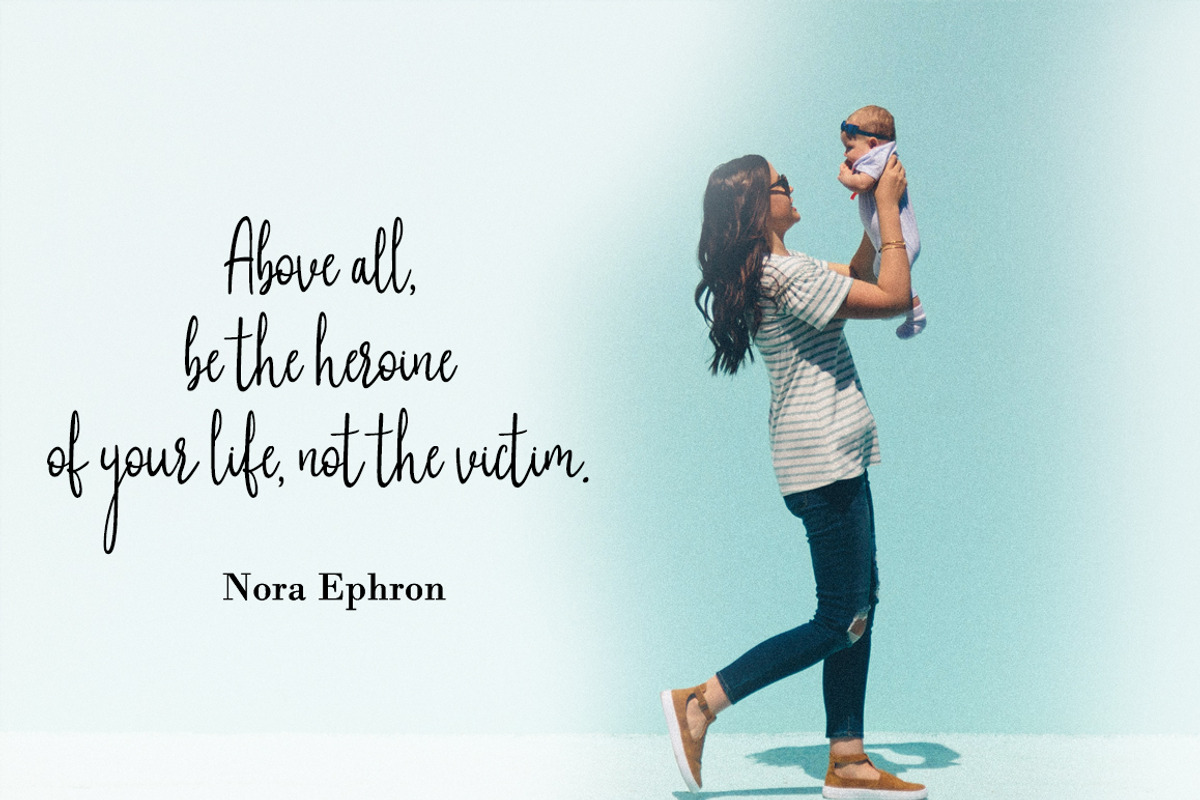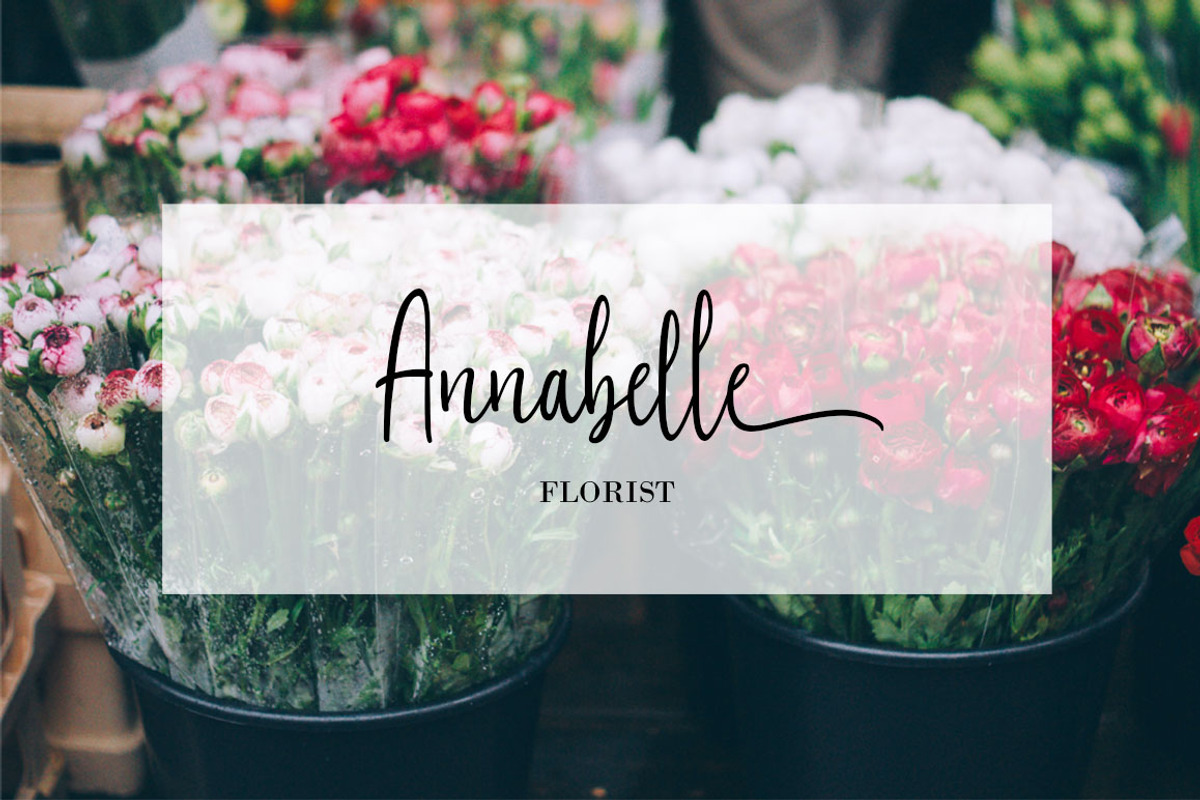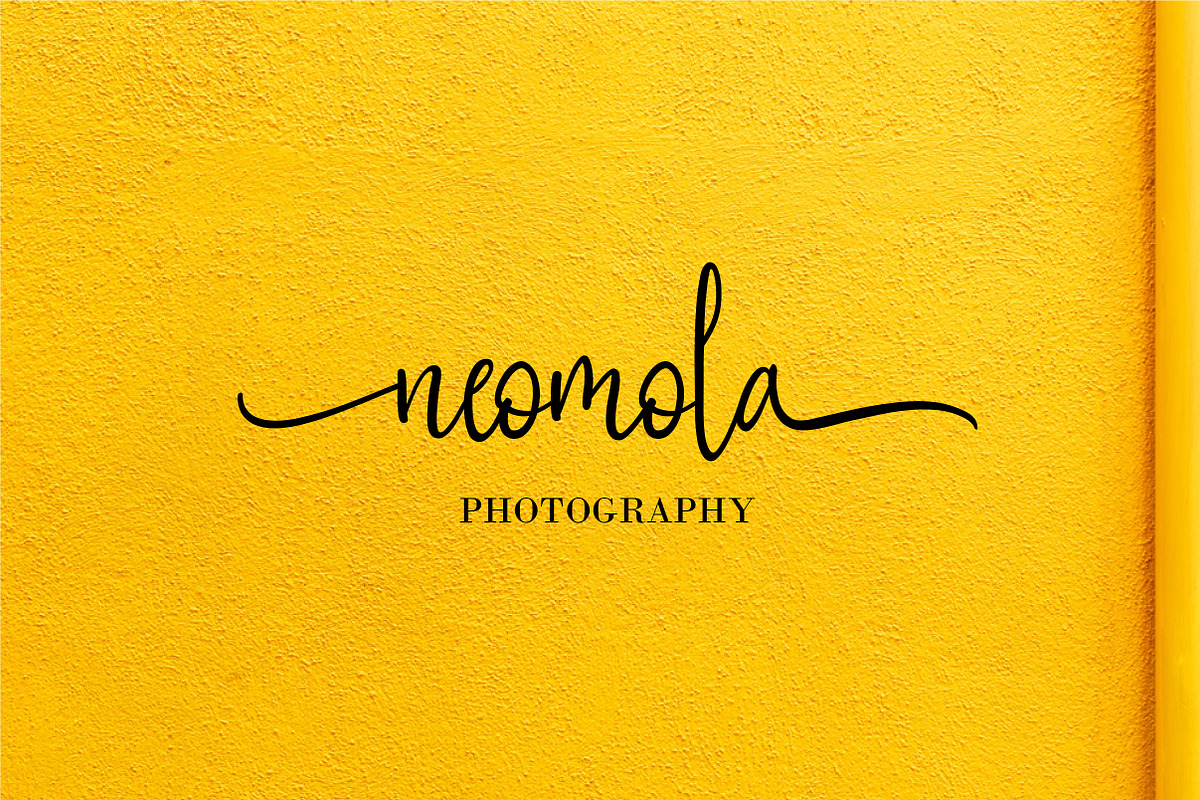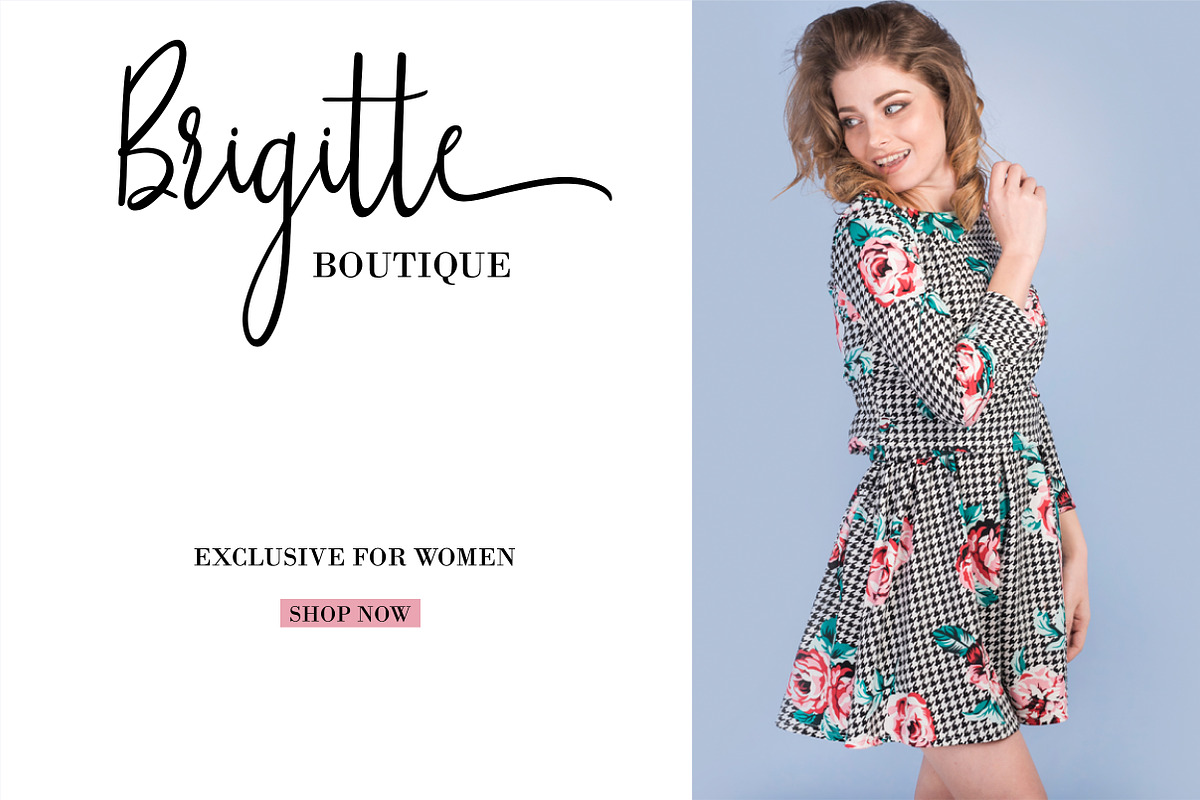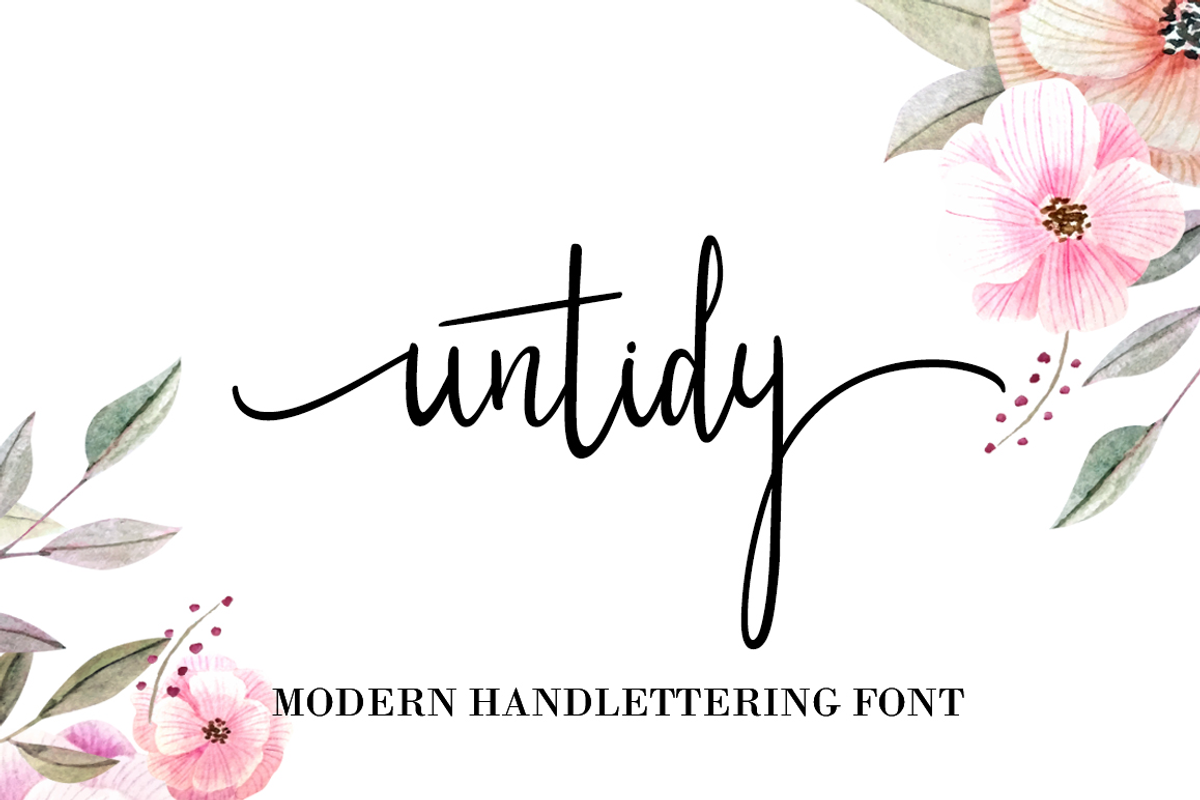
Untidy // Handlettering Font
Untidy is a modern handwritten font with a brush style. It features an incredibly classic style, while still keeping a friendly feel. Untidy is the perfect font for making original and outstanding designs.
Use this font for logos, wedding invitation, promotion, product packaging, quote, social media, websites, blogs, magazines, instagram, business cards, branding and more!
This font is modern, simple, but still authentic. You will get full set of lowercase and uppercase letters, numerals and punctuation, multilingual symbols,lowercase beginning and ending swashes and ligatures.